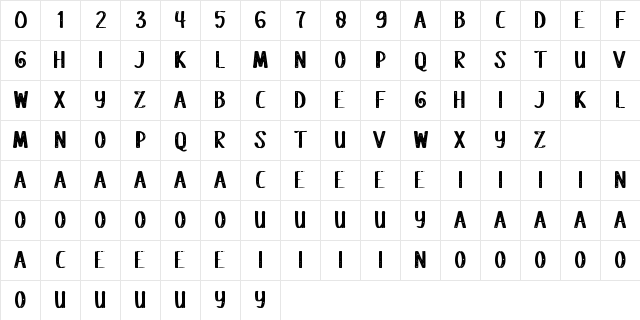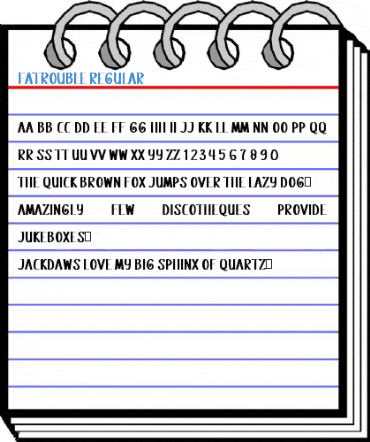
Complete Fatrouble Regular glyph index. Displaying only characters natively supported by Fatrouble Regular font.
Fatrouble is a composed and adaptable typeface that performs quietly and consistently across a wide range of design contexts.